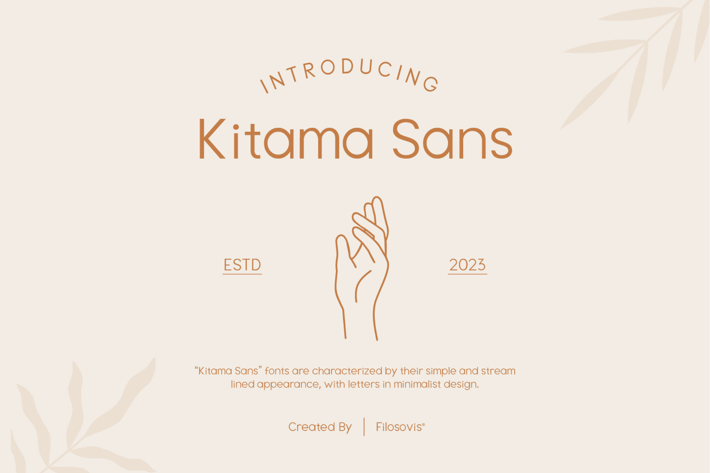
Kitama Sans Font | Sans Serif
Description
For your creative project, use the Kitama Sans Font-themed Sans Serif font. Sans Serif font is appropriate for every kind of design you produce, including greeting cards, posters, logos, and branding.